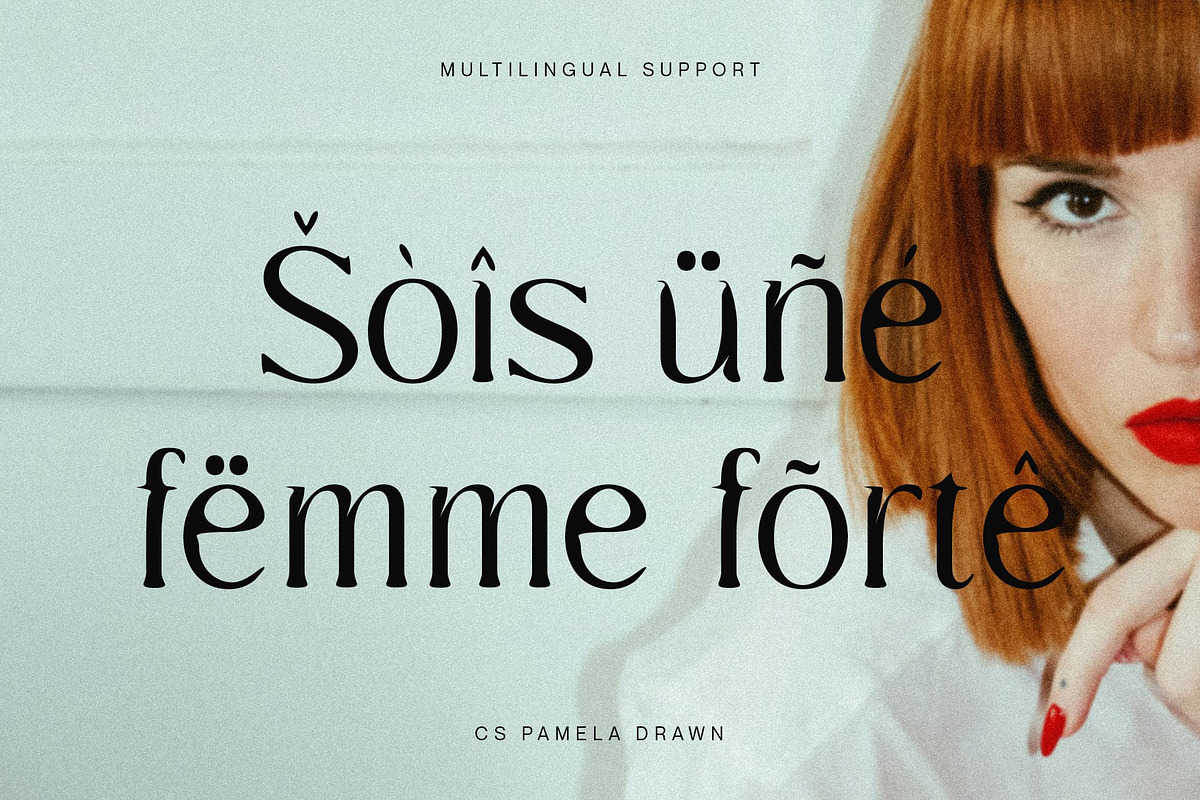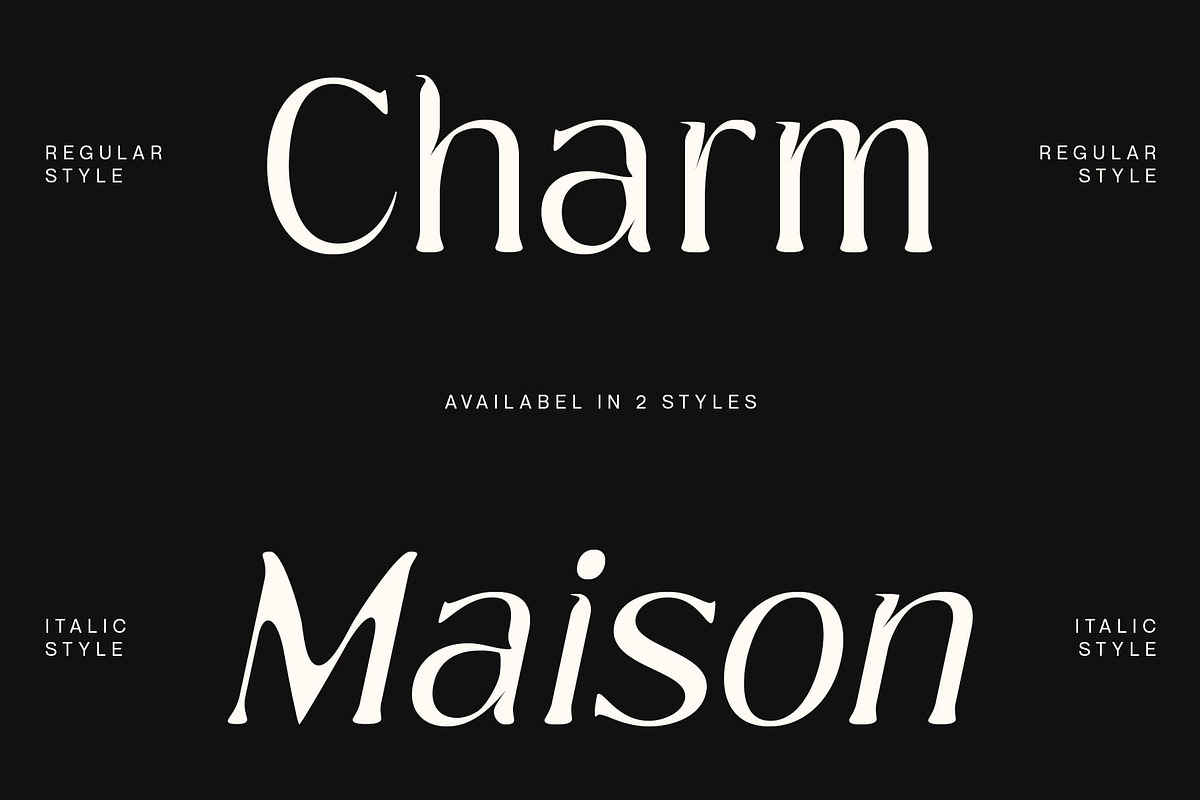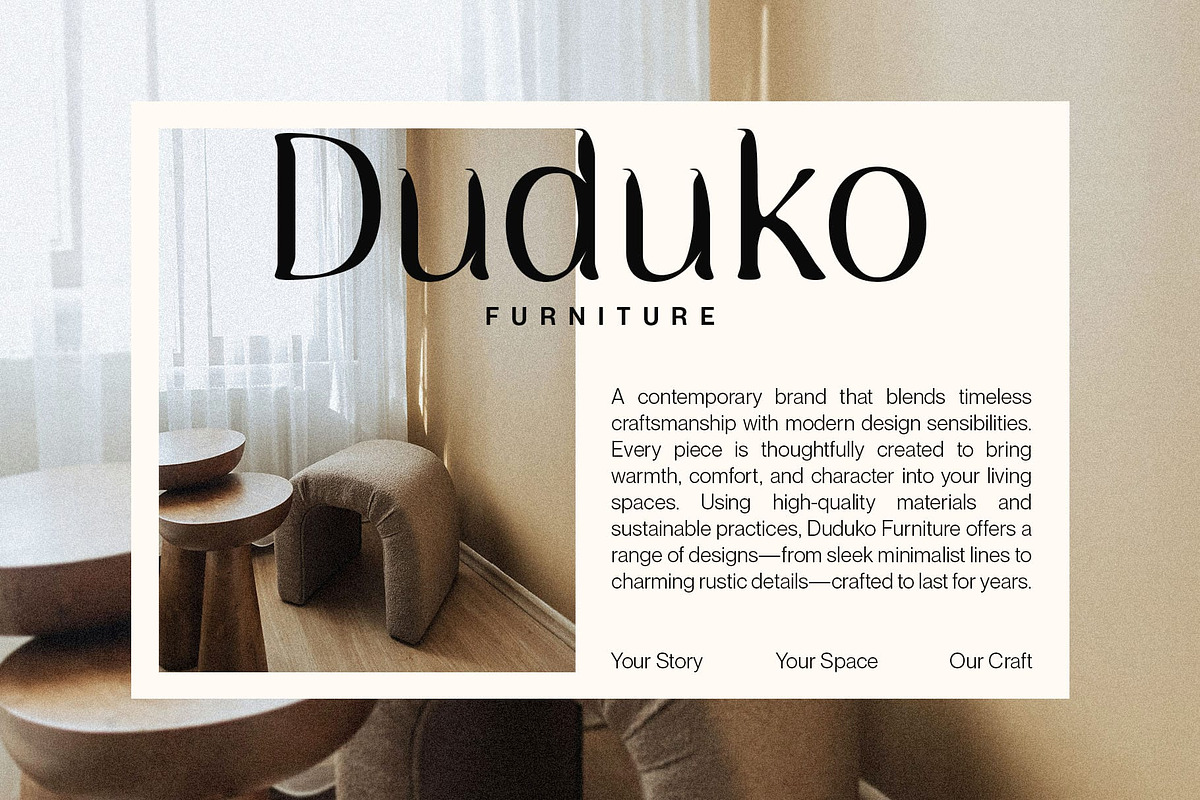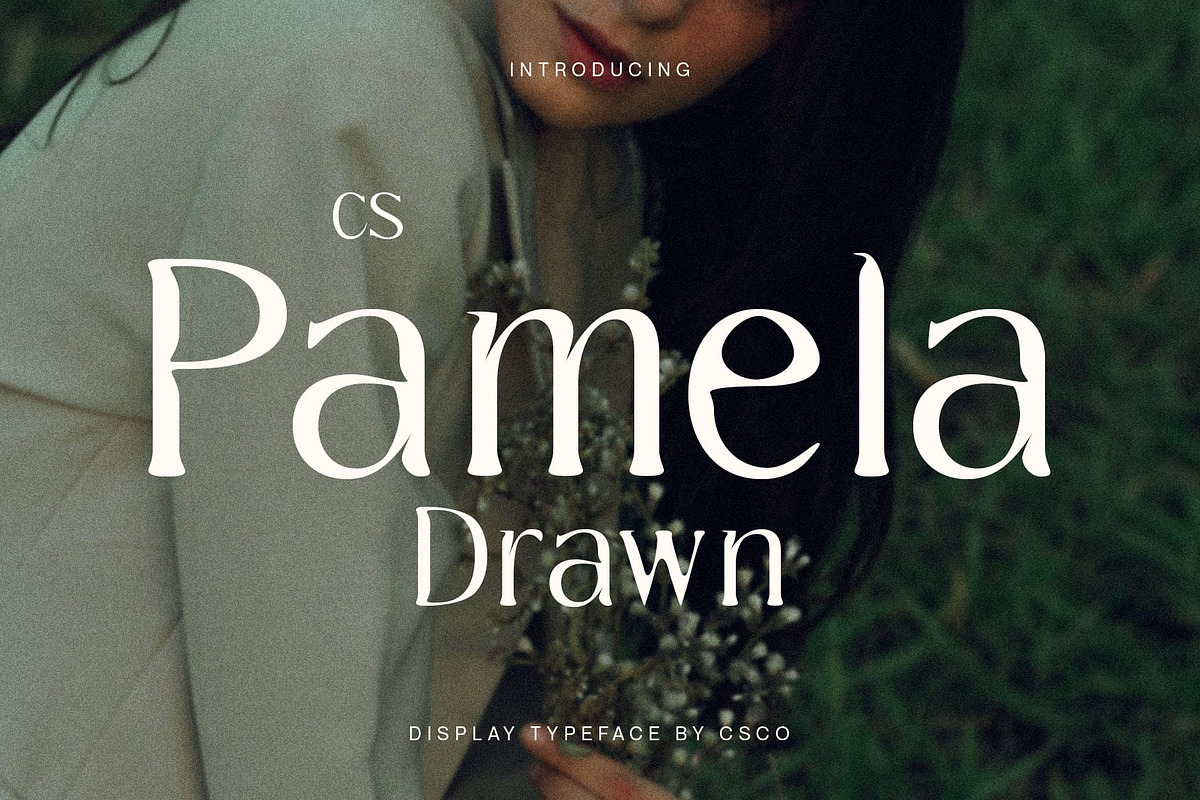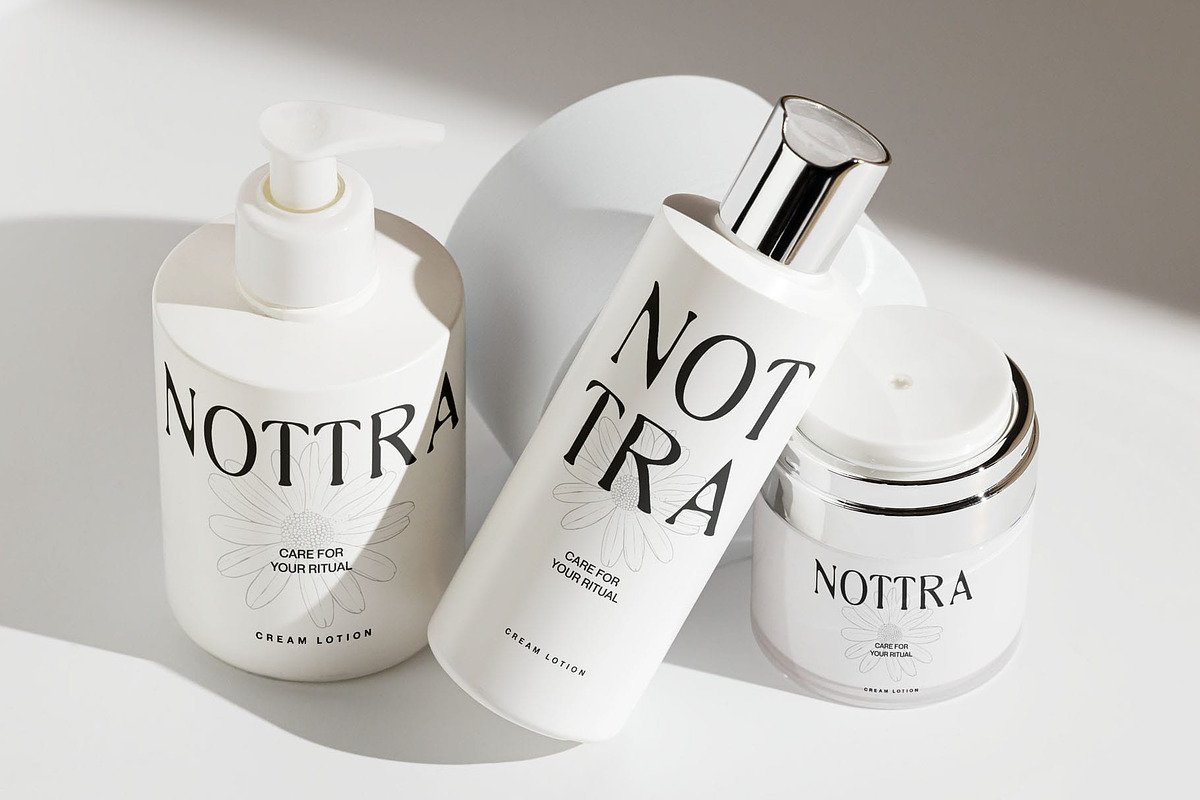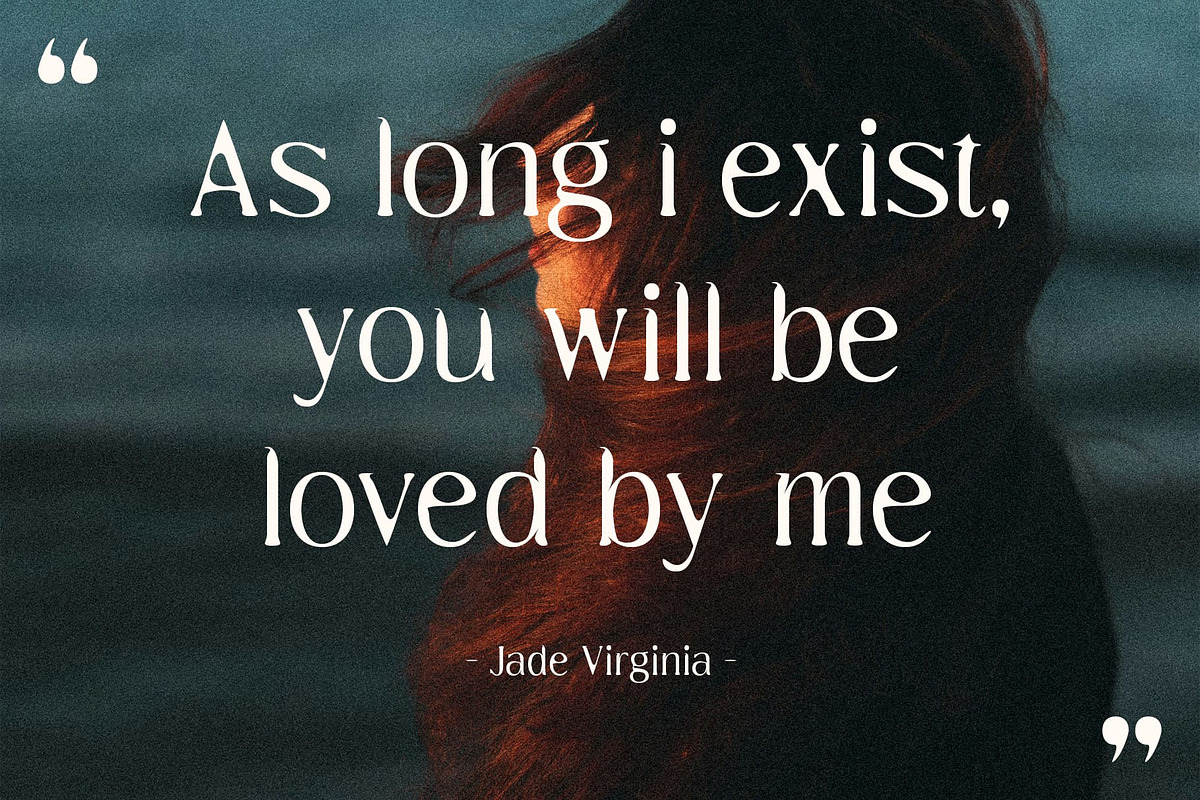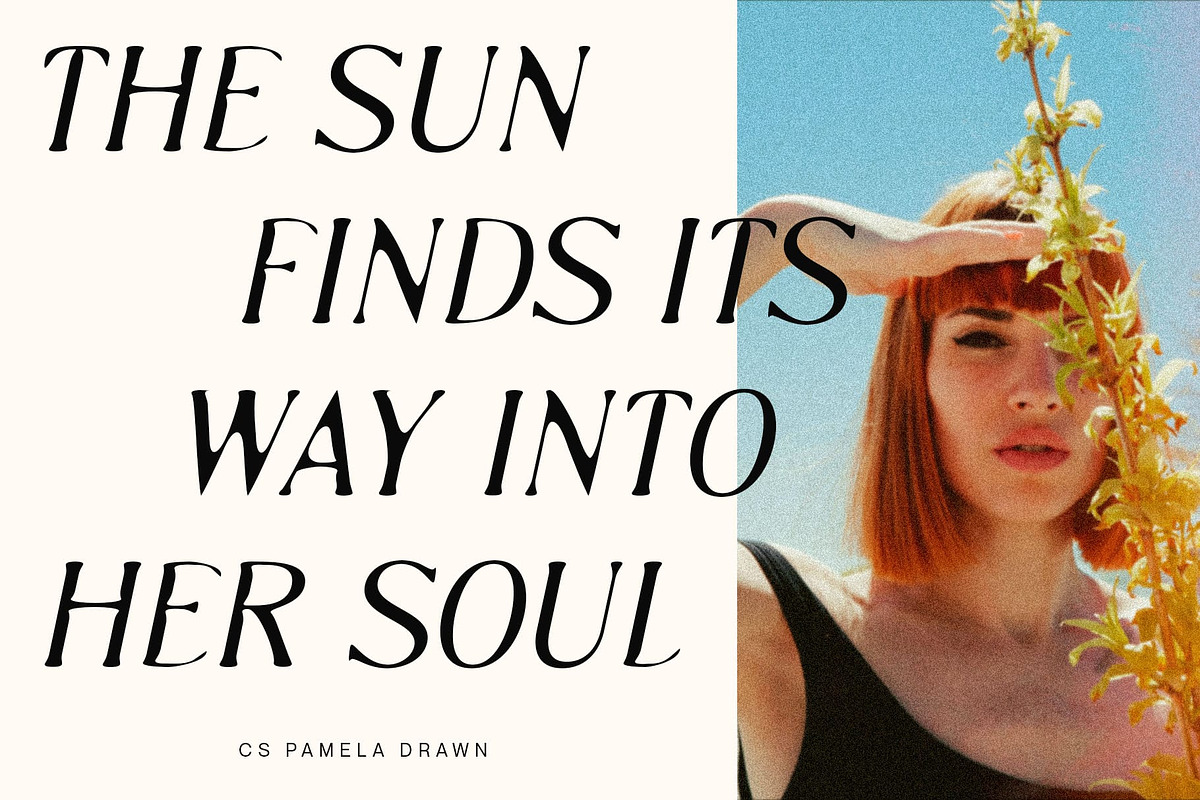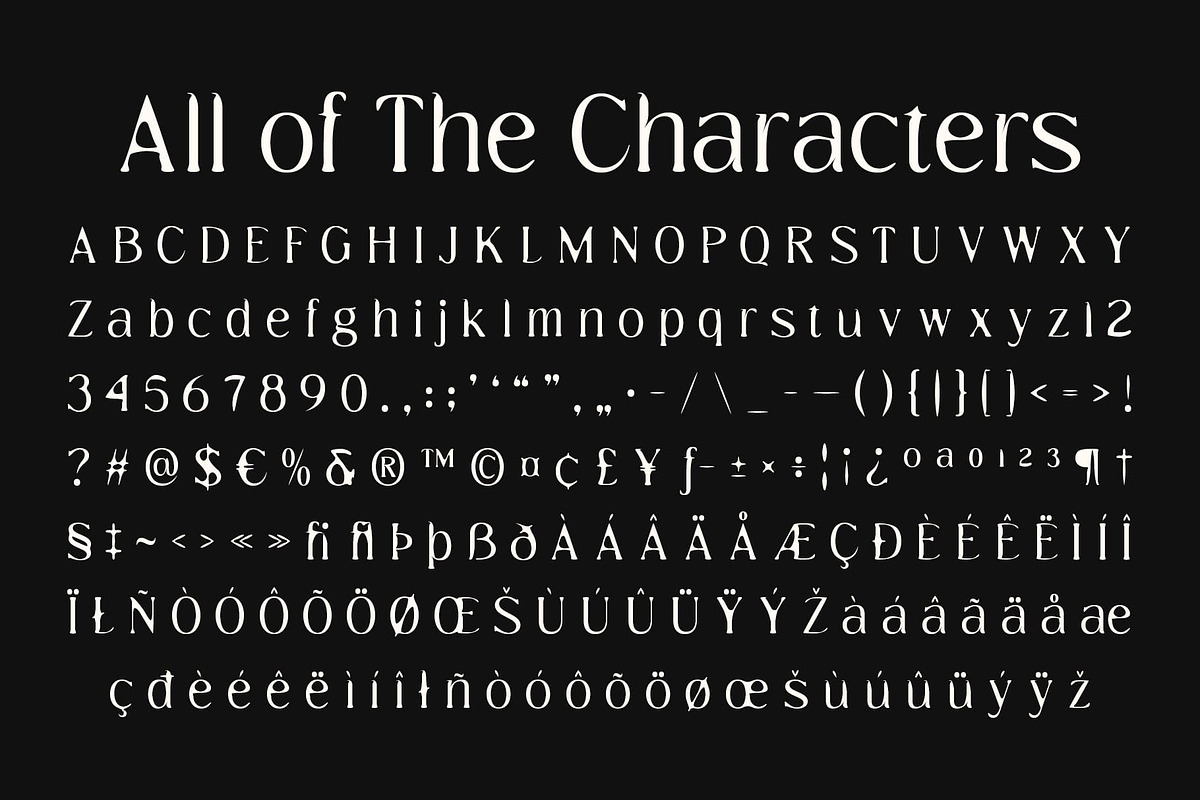
CS Pamela Drawn
CS Pamela Drawn: Classic Elegance with Artistic Precision
Modern Classic Serif with Inktrap Details CS Pamela Drawn is a modern classic serif font that masterfully combines sharp inktrap details with clean, functional forms. These distinctive features not only enhance readability but also add a sophisticated edge, creating a design that feels sleek, contemporary, and refined.
Handcrafted Drawn Texture What sets this humanized font apart is its subtle drawn effect, which introduces a handmade quality to the structured serif design. This texture brings warmth, depth, and individuality, allowing the font to balance between mechanical precision and artistic character.
Harmonizing Tradition and Modernity Rooted in timeless serif elegance yet infused with modern design principles, this classic font delivers a versatile visual language. Its classic shapes feel familiar and trustworthy, while its contemporary sharpness ensures a fresh, forward-looking appeal.
Versatile for Creative Design Needs From editorials and branding identities to striking posters and digital layouts, this typeface adapts seamlessly across projects. Whether you want to convey elegance, sophistication, or a creative edge, this creative font ensures your design stands out with confidence and style.
A Font for Elegant Storytelling More than just a typeface, this unique and distinctive font offers designers a tool to communicate stories with clarity, artistry, and distinction. It’s the perfect balance of structure and creativity, making it an essential choice for modern design projects seeking depth and personality.
- CS Pamela Drawn Regular
- CS Pamela Drawn Italic